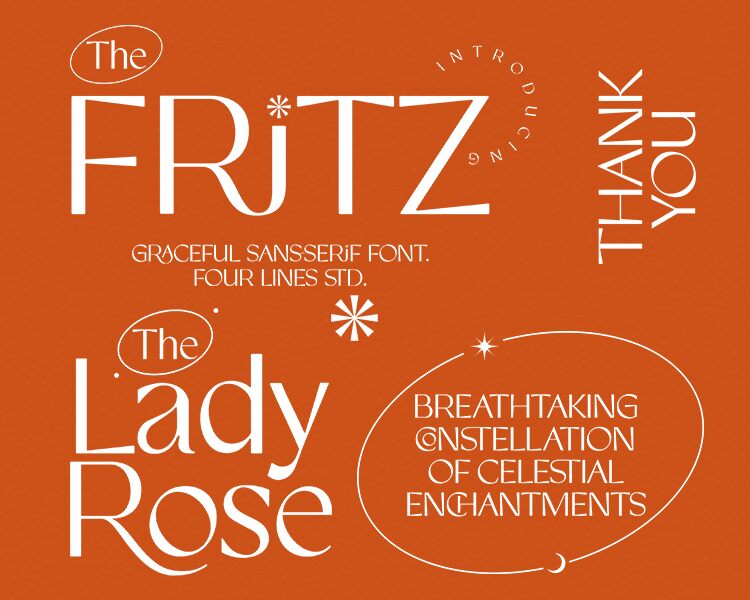
Fritz
Fritz by Four Lines is a free sans serif font. It stands out with sculpted, tapering strokes and crisp, chiseled terminals that feel both modern and hand-hewn. The rhythm is tight and deliberate, with generous curves meeting knife-edge cuts, giving headlines a clean snap while keeping a human warmth. It’s the rare sans that carries drama without shouting.
Using Fritz, your work shines on fashion branding, editorial spreads, posters, boutique logos, packaging, and book covers. This free font brings a refined tension-elegant at large sizes, assertive on short lines. Pair it with a quiet grotesk for body copy, and give Fritz extra letterspacing when you need a luxe, airy mood.